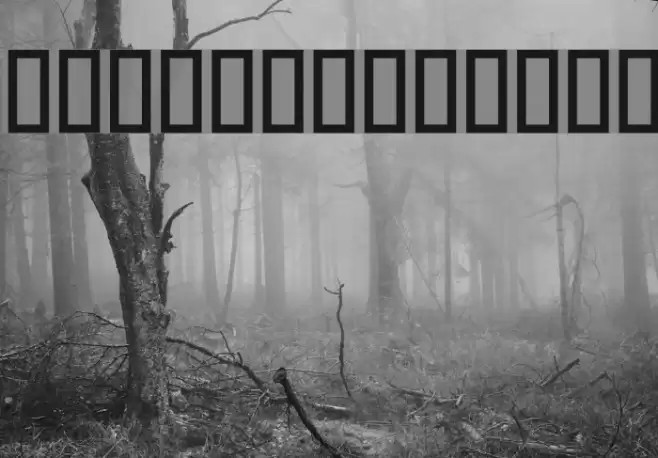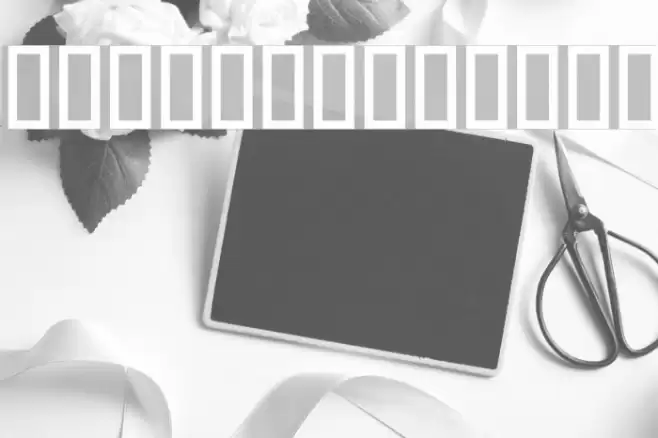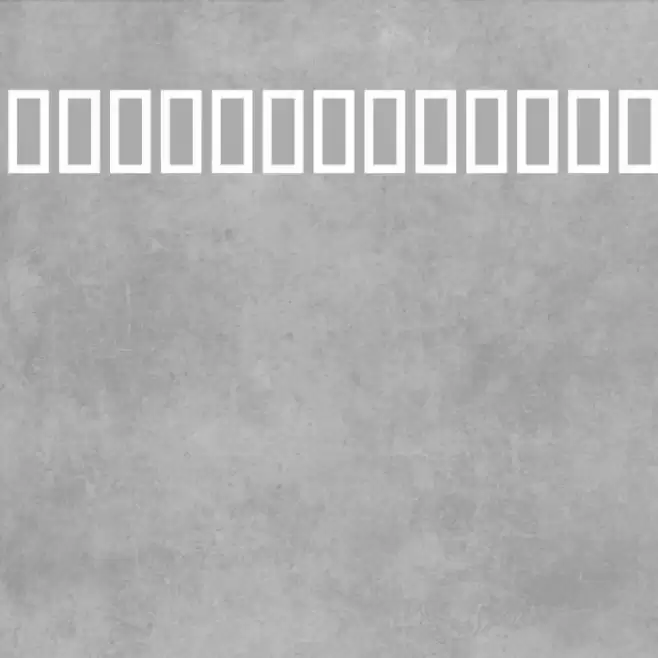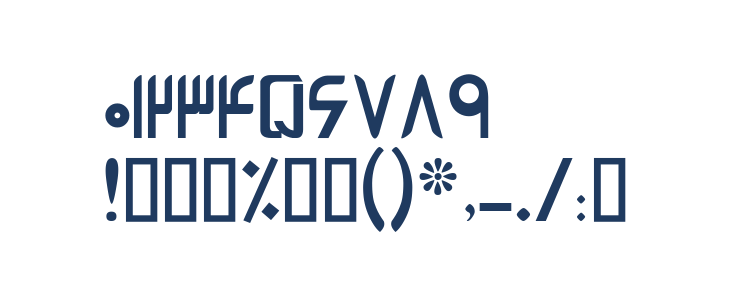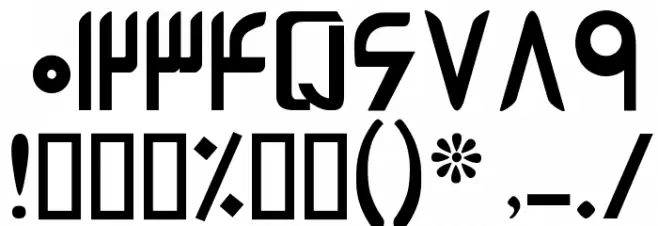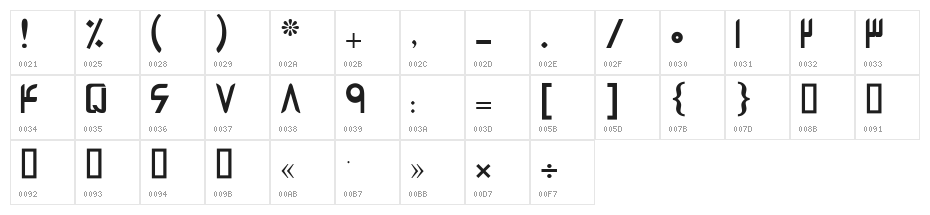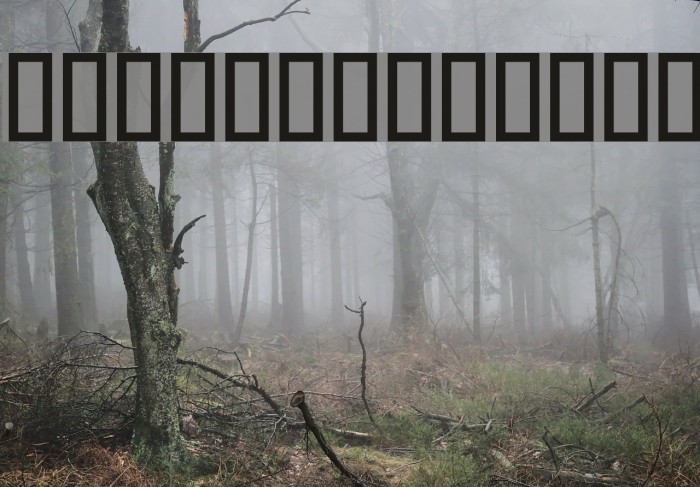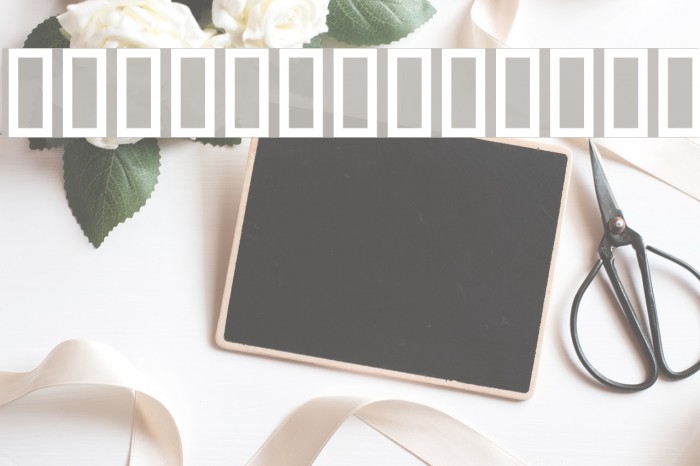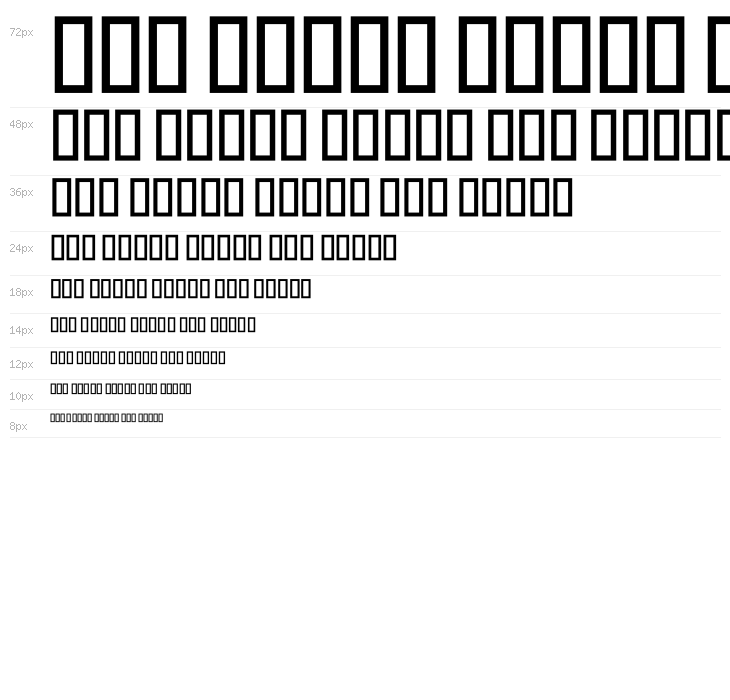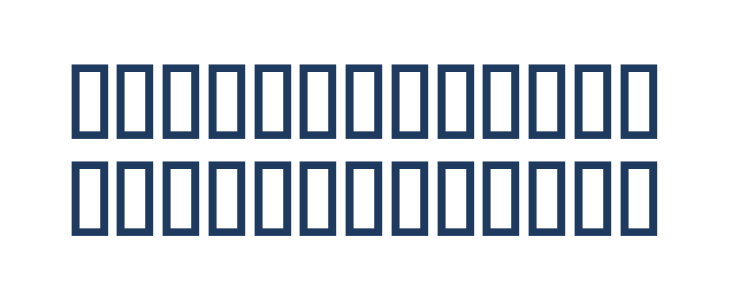
Mawlawi Font
Mawlawi Description
This font features a bold and geometric design, characterized by its strong, block-like structure. The characters are uniformly square-shaped, creating a consistent and modern appearance. The font's style is highly decorative, making it suitable for attention-grabbing headlines or artistic projects. Its unique design elements include sharp angles and a futuristic aesthetic, which can add a contemporary touch to any design. The font's distinctiveness lies in its ability to convey a sense of modernity and innovation, making it ideal for projects that aim to stand out.
A bold, geometric font with a modern and decorative style from Uncategorized fonts.